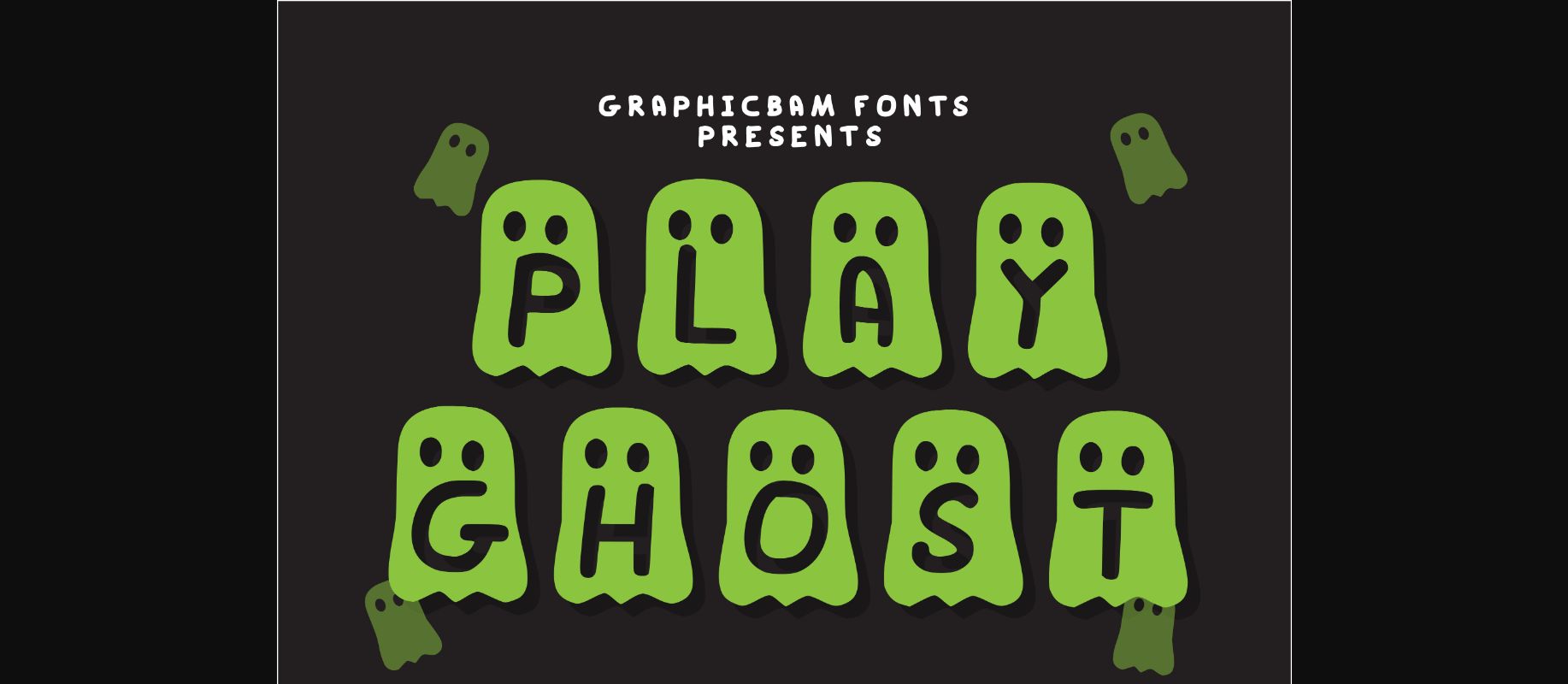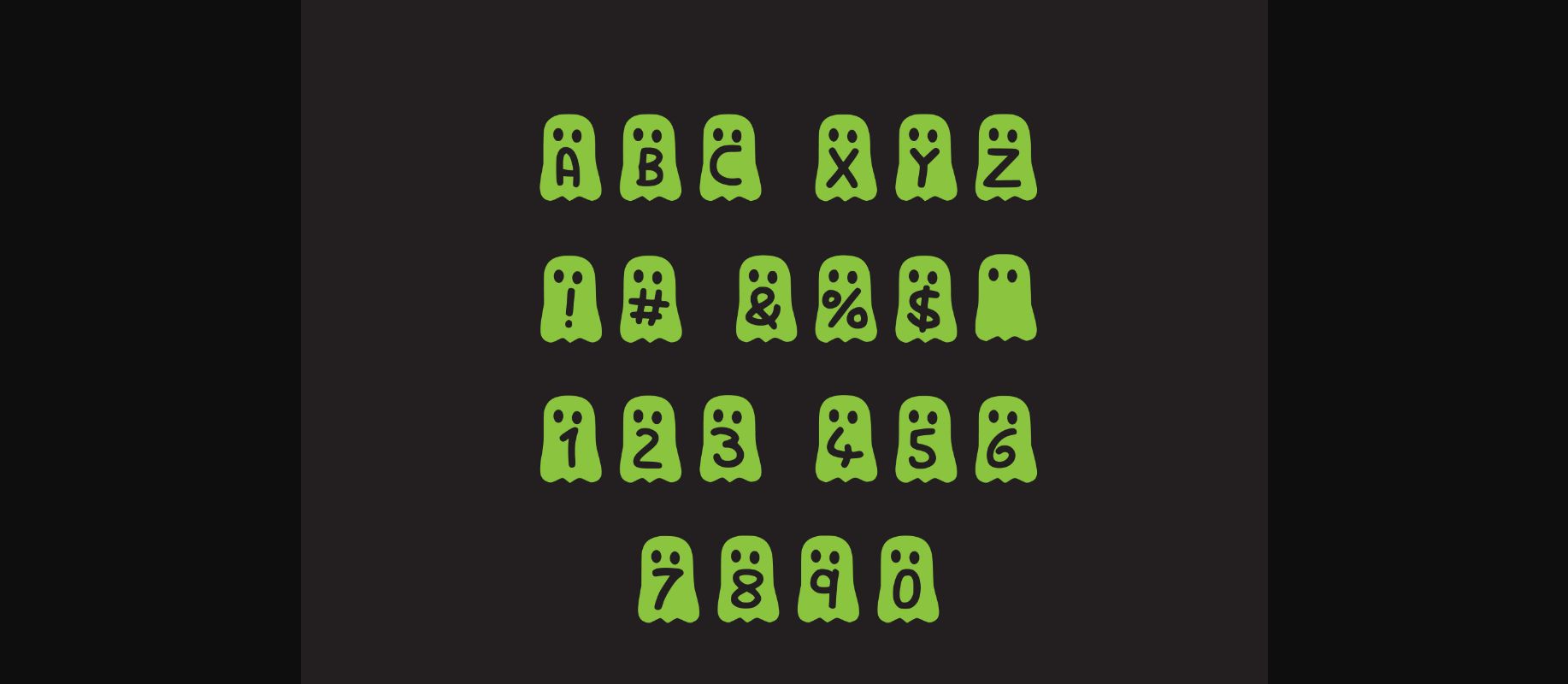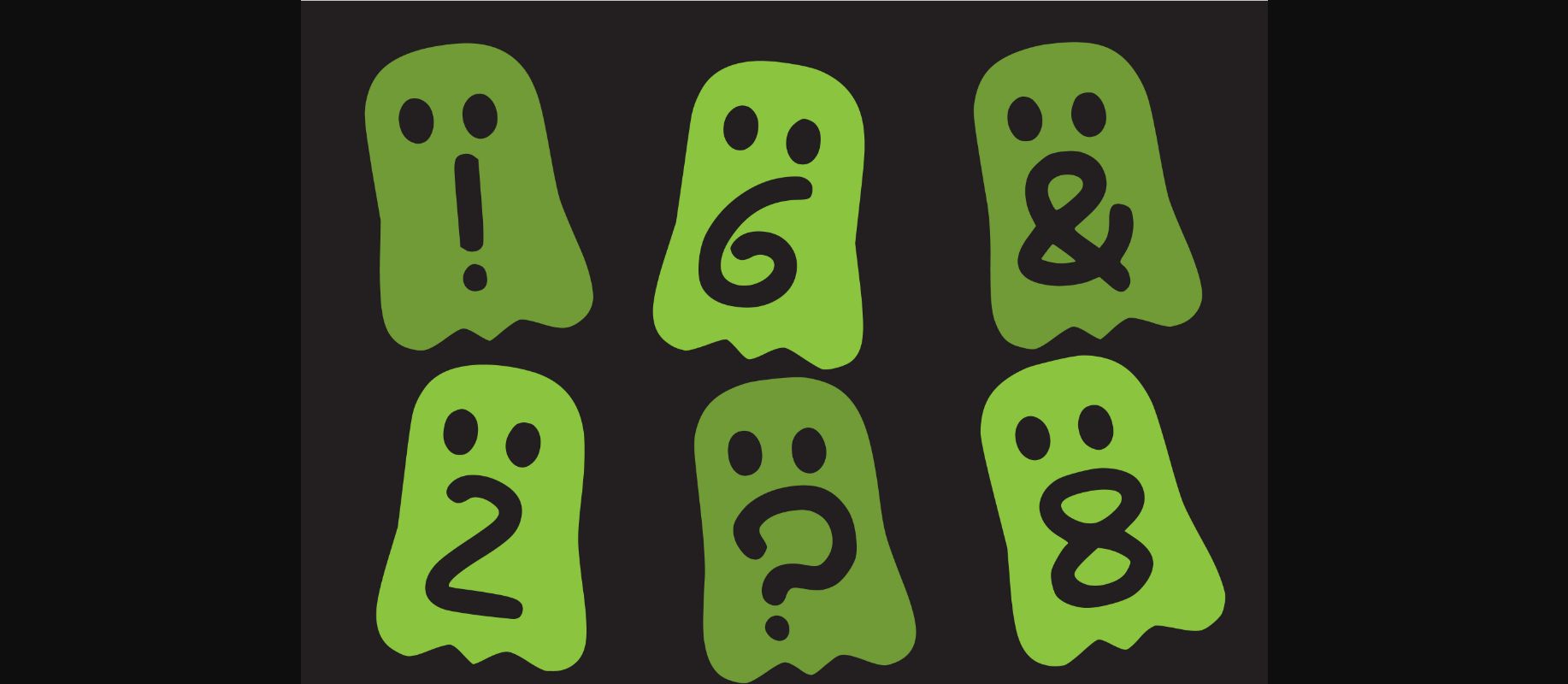
Play Ghost is an incredibly cool and interestingly designed decorative font. Whether you’re using it for crafting, digital designing, presentations or greeting cards making, it’s perfect!